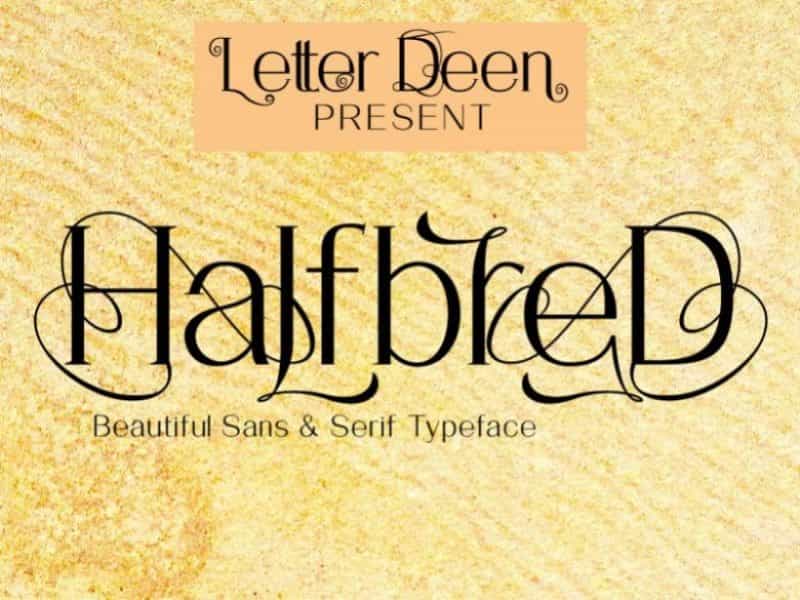
HalfbreD Font is a sans & serif font created with simple shapes that are enshrouded in a beautiful and minimalistic design that results in a beautiful and elegant font, supported by binders and more font substitutions for each character that will make it easier for you to explore your design style, With various forms of alternative styles that enable logos, posters, covers, main packaging, t-shirts, business cards, wedding cards and more.